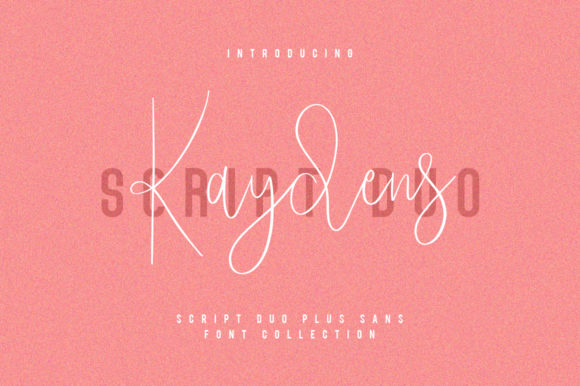
In the realm of typography, Kaydens Font emerges as a radiant gem, shimmering with creativity and elegance. This captivating fusion of two graceful scripts and a striking sans serif reveals a font family that embodies versatility like a chameleon, adapting effortlessly to a myriad of design landscapes.
Crafted with meticulous precision by the visionary artists at Maulana Creative, Kaydens Font takes center stage, commanding attention with its casual charm and natural allure. Its earthly aura exudes a sense of approachability, inviting you to immerse yourself in its warmth and sincerity.
Drenched in versatility, Kaydens Font possesses an uncanny ability to elevate your creative endeavors, transforming ordinary words into mesmerizing masterpieces. Whether you're a seasoned designer or a budding enthusiast, Kaydens Font serves as your creative catalyst, propelling your designs to new heights of brilliance.
Picture Kaydens Font as the radiant star in your design firmament, illuminating your projects with its captivating aura. Its effortless readability ensures that your message shines through, while its inherent versatility allows it to adapt seamlessly to any background, becoming an integral part of your visual tapestry.
Step into the world of Kaydens Font, where creativity knows no bounds and expression flows freely. Embrace the harmonious blend of scripts and sans serif, and unlock a universe of design possibilities. Let Kaydens Font ignite your imagination and set your creativity ablaze.